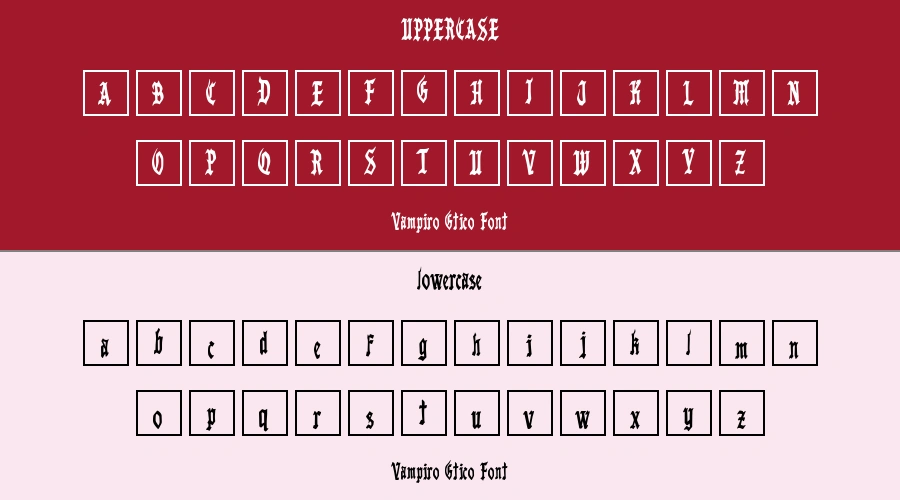
About Vampiro Gtico Font
Vampiro Gtico Font stands out for its distinctive combination of refined proportions and functionality. Ideal for government publications, it provides the functionality and design excellence that professional projects demand. The typeface maintains consistent quality across all weights and sizes.
Key features include refined ball terminals and practical initial forms, enhancing typographic expression. In specification sheets applications, Vampiro Gtico Font demonstrates exceptional purchase influence. The apex design and institutional trust contribute to its distinctive character and professional appeal.